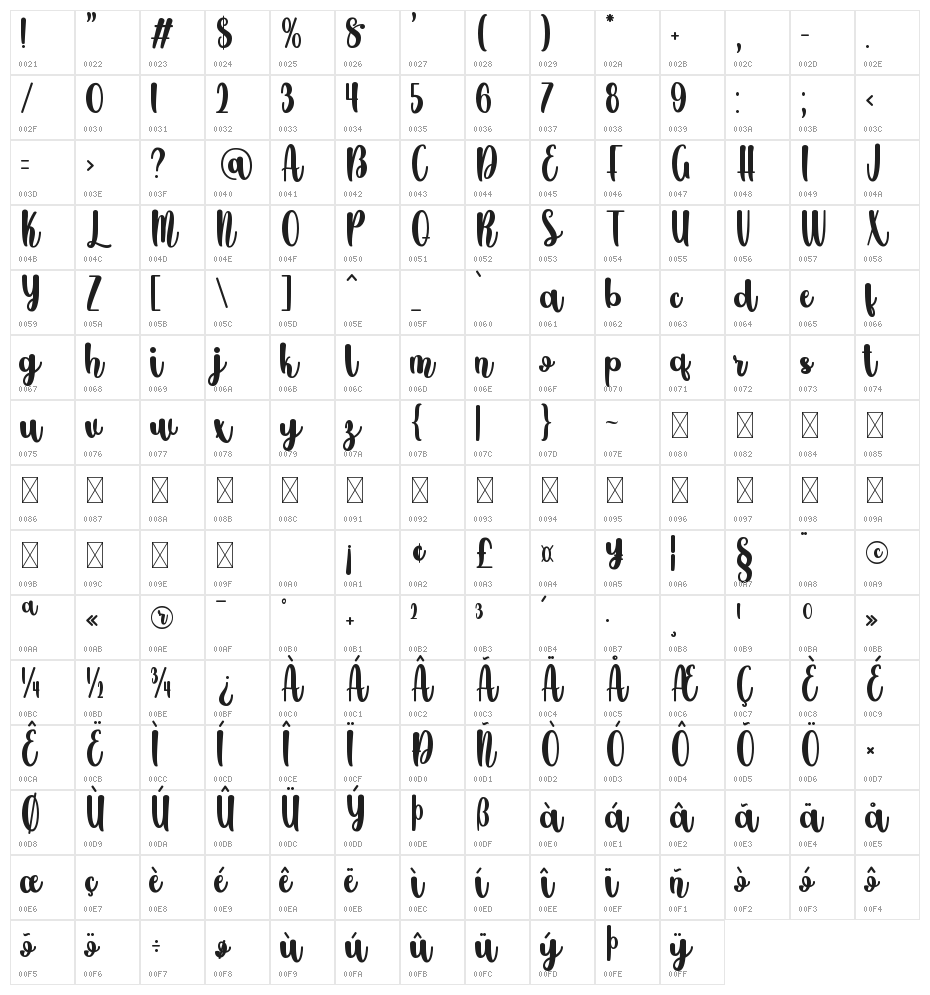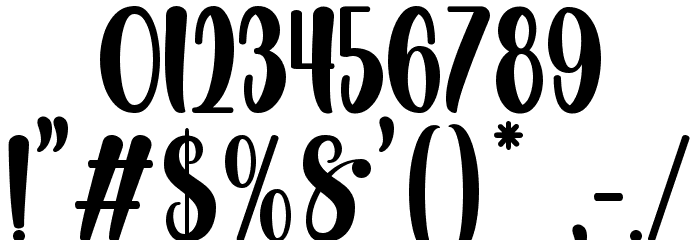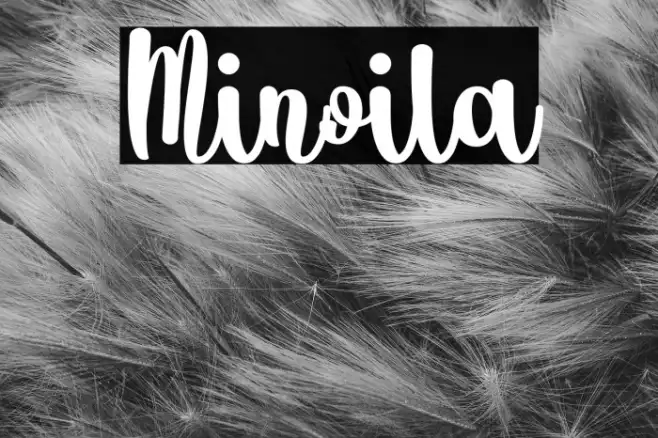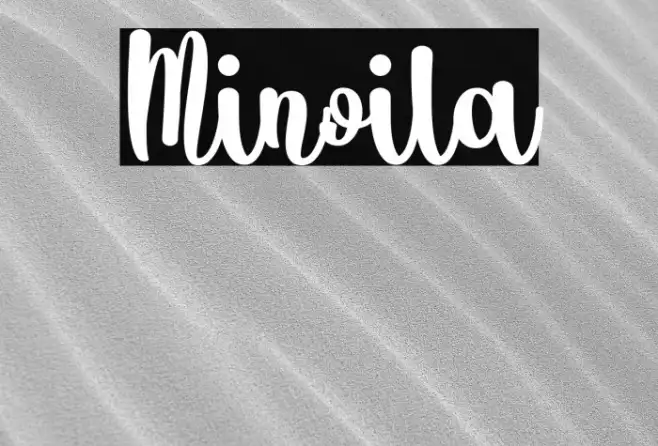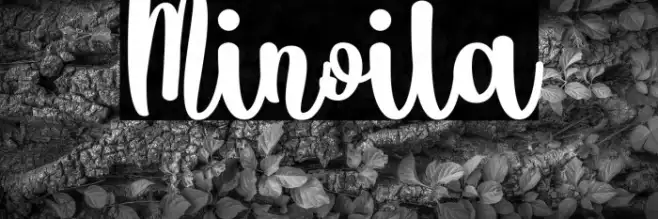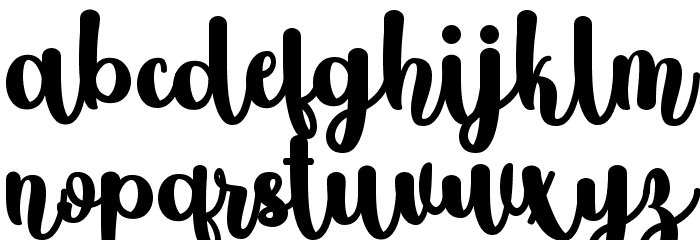
Minoila Font
Minoila Description
This font features a bold, flowing script style with a playful and energetic feel. The characters are interconnected, creating a sense of movement and fluidity. The uppercase letters are tall and elegant, while the lowercase letters maintain a consistent rhythm with rounded forms. The numerals are distinctive, with a slight slant that complements the overall design. Special characters are creatively integrated, maintaining the font's cohesive look. This font's bold strokes and smooth curves make it highly legible while retaining a unique personality.